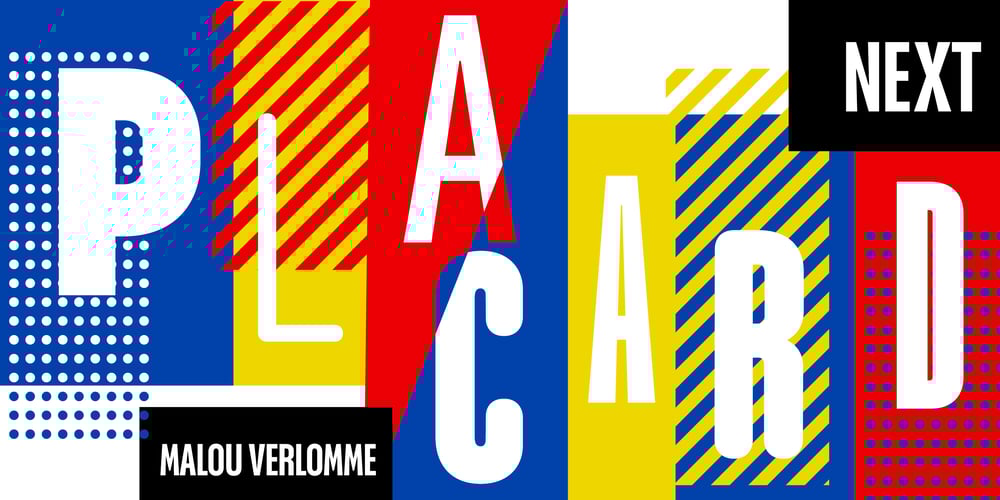
Placard Next Font Family was designed by Monotype Design Studio, Malou Verlomme and published by Monotype. Placard Next contains 48 styles and family package options. Based on a Monotype 1930s condensed poster typeface, Placard Next is bursting with personality. Unexpected details appear throughout the design, from its wedged diagonals and single storey a to its round tittles – which would more ordinarily be square, and mechanical. The warmth and quirkiness of its character really shines through when set at larger sizes, making this a typeface for posters, headlines, and anywhere else designers need to make a statement. Designer Malou Verlomme has paid particular attention to the typeface’s ‘word images’, further amping up its impact, and added some vintage flavor with Placard Next Round. As well as a striking display typeface, Placard Next’s four widths and six weights – hairline to bold – mean it’s a versatile design, that can be adapted for use in almost any environment. The complete family contains 48 fonts: 24 in Placard Next and 24 in Placard Next Round. It includes a large multilingual character set.